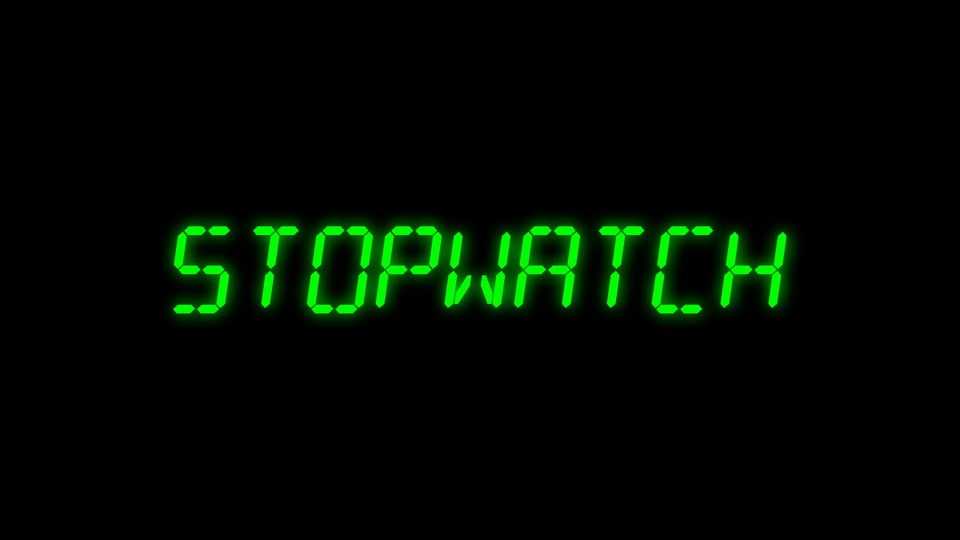
Download LT Stopwatch font, a typeface designed to emulate the familiar digital display of traditional LCD screens, providing users with a sense of familiarity and ease of use.
Designer: LyonsType